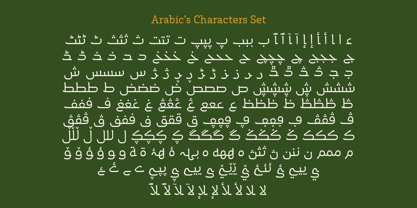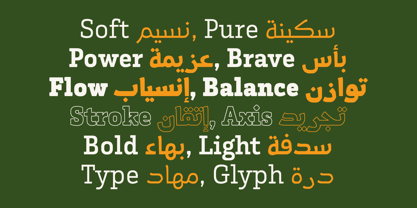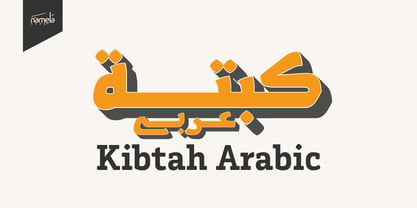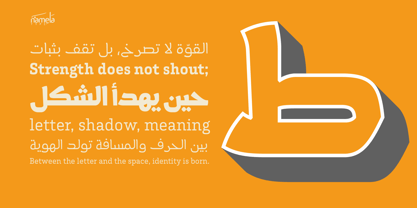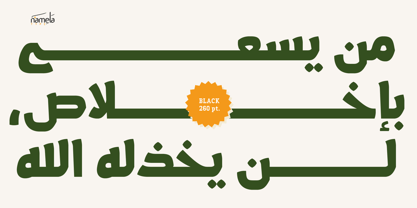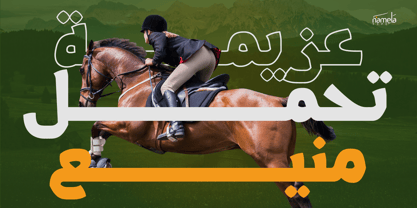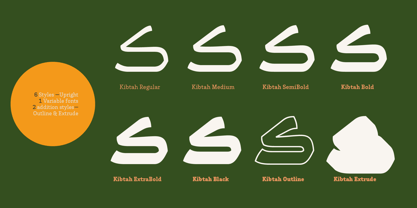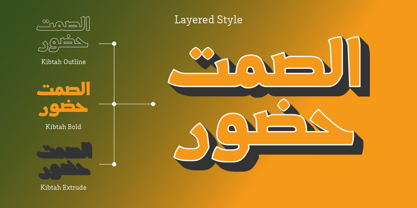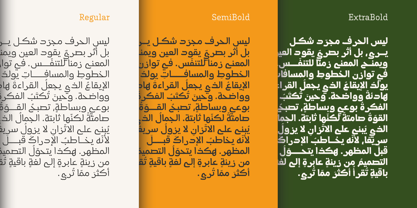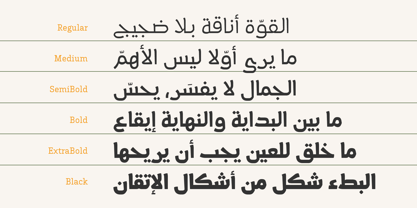
Kibtah Arabic
The Kibtah Arabic Font Family was designed by Nur Syamsi, Bustanul Arifin and published by NamelaType. Kibtah Arabic contains 8 styles and family package options. More about this family
Inspired by the enduring legacy of Kufic script, Kibtah Arabic Contemporary Kufic Font transforms historical structure into a modern typographic system. Geometric, bold, and architecturally precise, Kibtah emphasizes clarity and visual strength while remaining highly functional for contemporary design. Designed to pair seamlessly with Latin slab serif styles, it creates harmonious bilingual typography ideal for branding, editorial, and digital applications. Rather than imitating traditional complexity, Kibtah refines Kufic principles into a clean, expressive, and versatile Arabic typeface built for today’s visual communication.